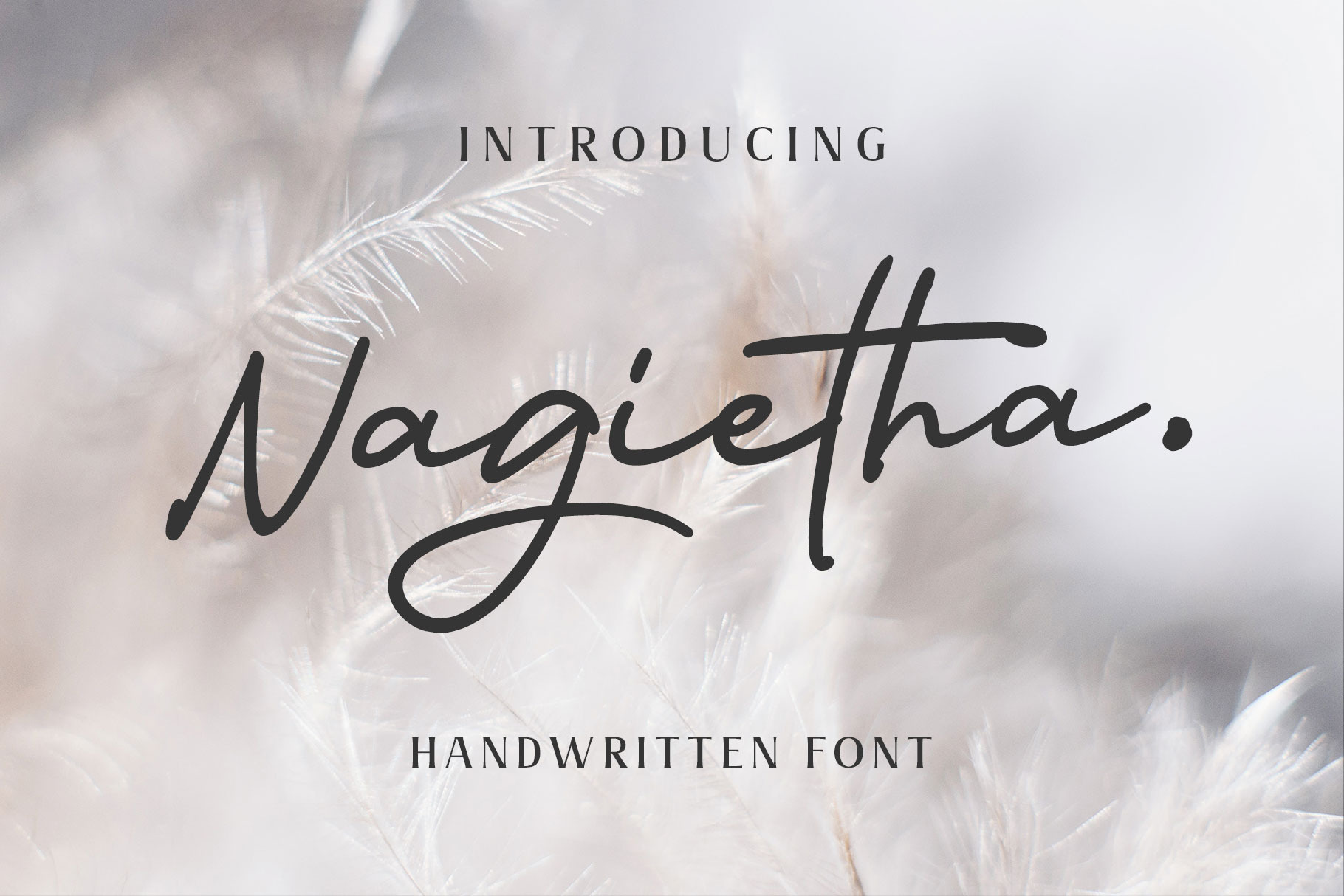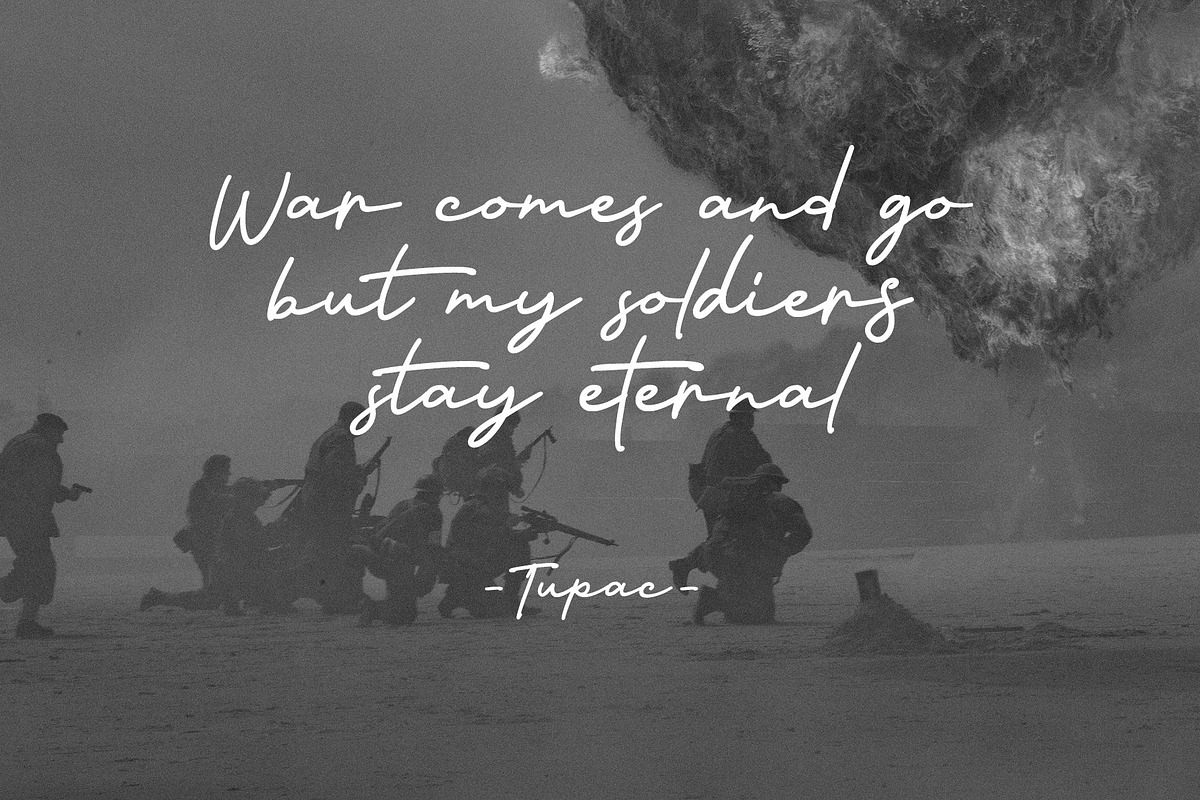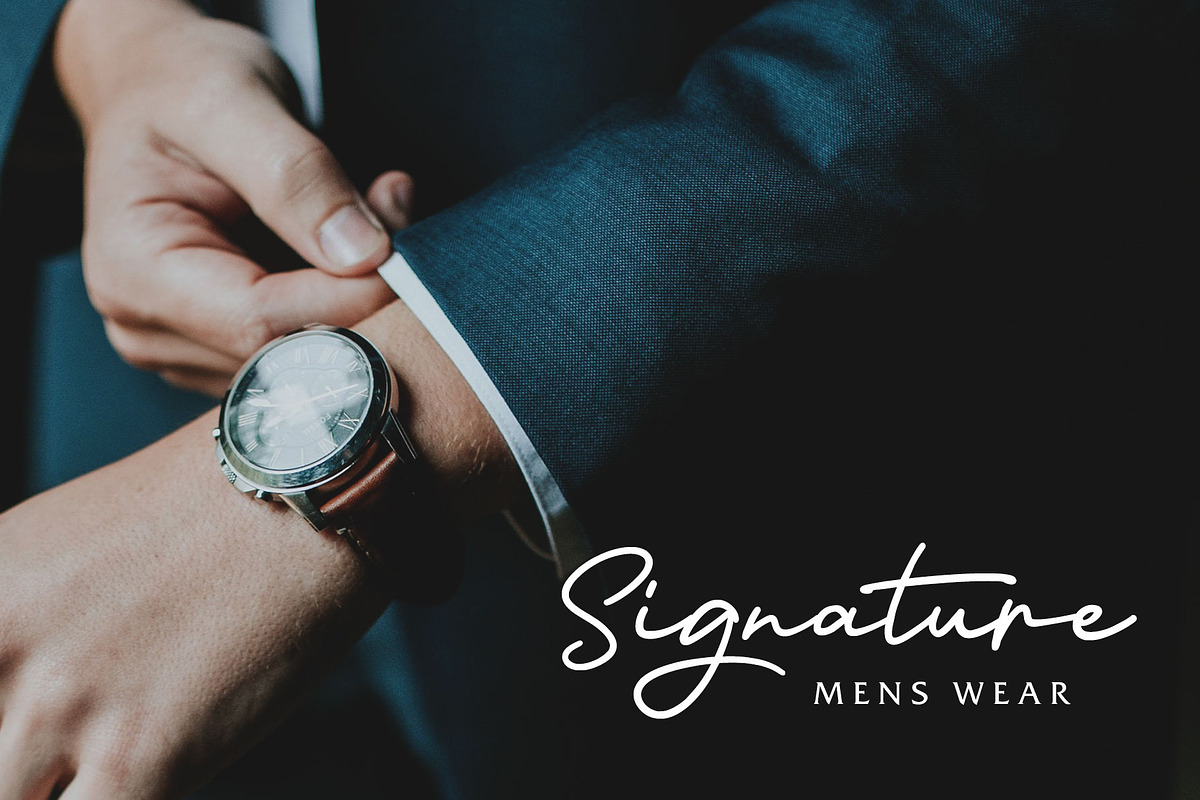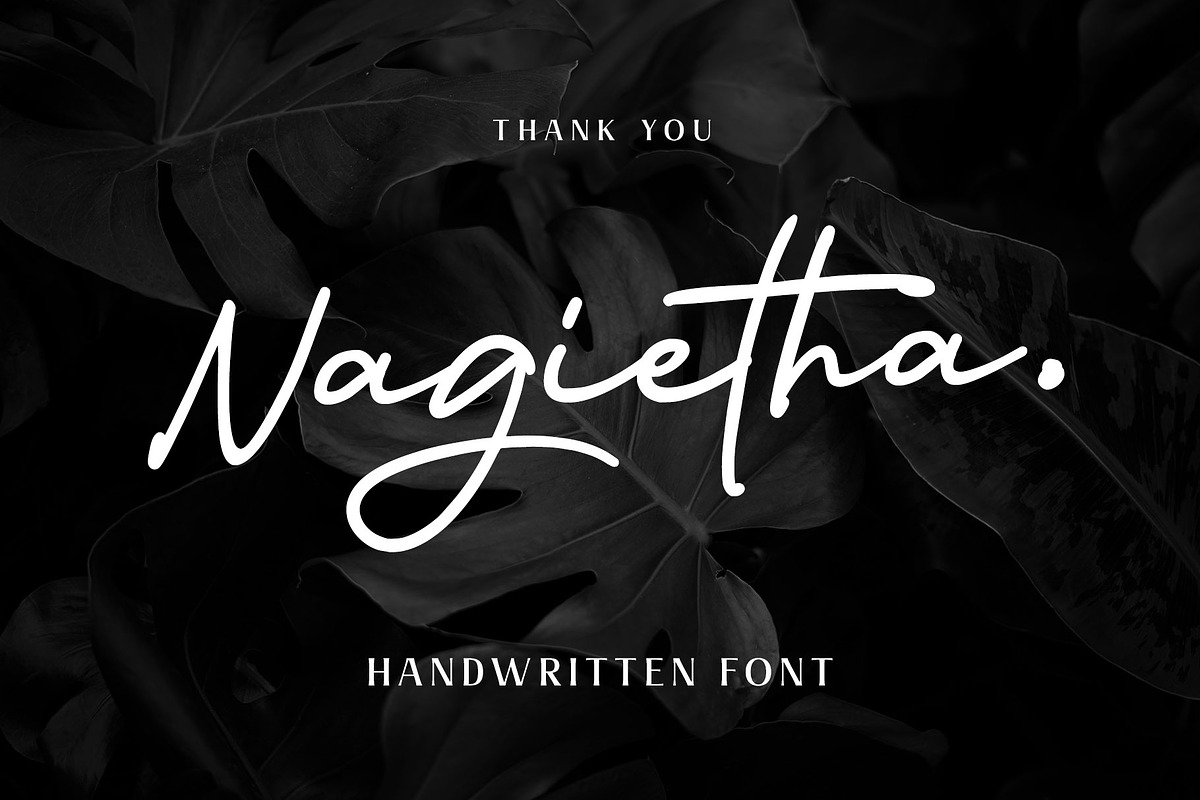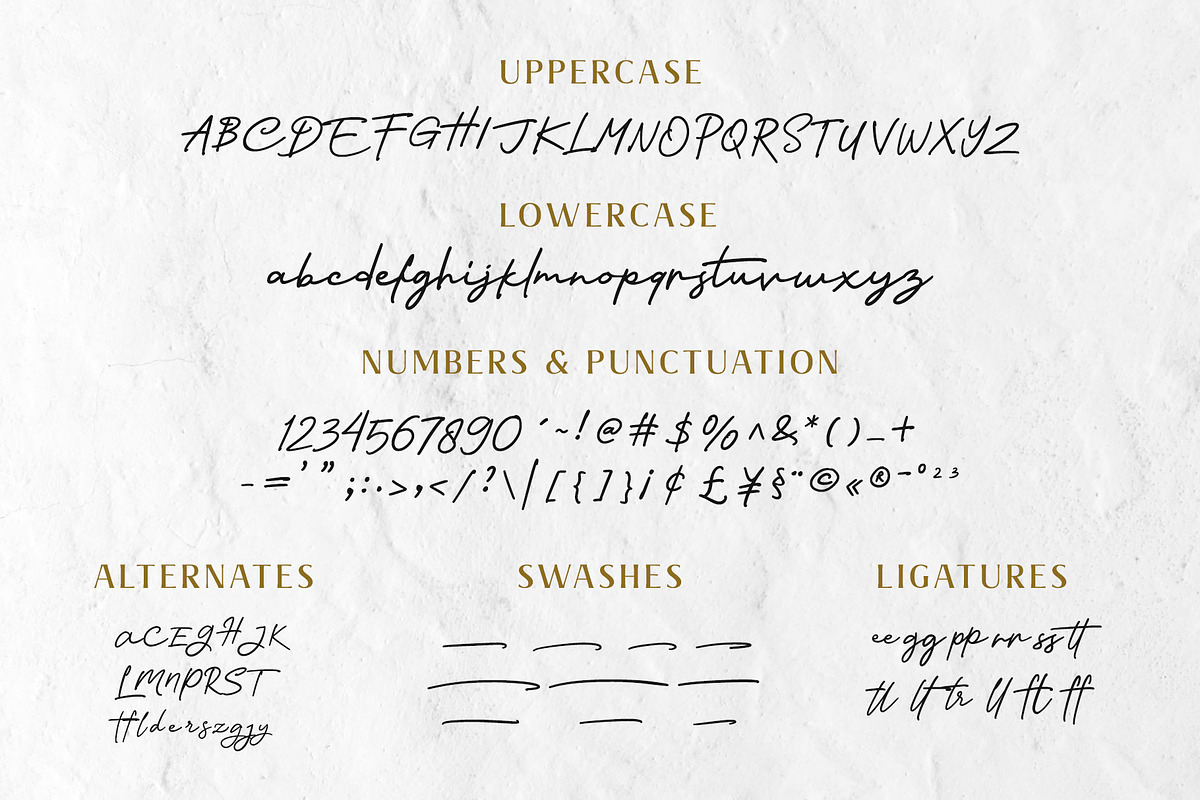
Nagietha - Handwritten Font
Nagietha is a type of handwritten font with a dynamic & natural flow. This font is designed with original handwriting and gives it a personal touch. Carefully vectorized by keeping the rough line still looks natural, romantic and personal.
You can combine this font with many font styles such as serif, san-serif, oblique, italic, slab and etc. This font is specially made for personal branding but also works well for many applications. Perfect for logotype, labels, cosmetics, packaging, watermarks, quotes, apparel design, signature template, wedding invitation, food menu, doodle or any advertising needs.
- Numbers & Simbols
- Accents
- Stylistic alternates
- Swashes.